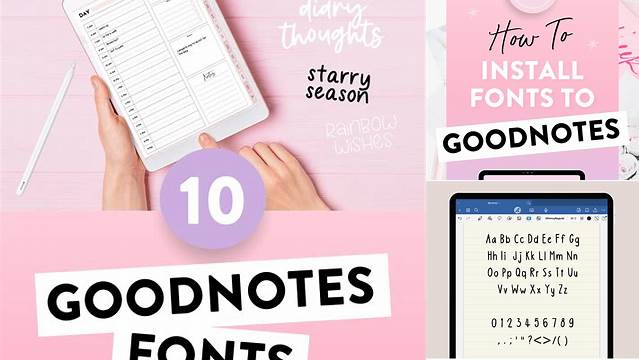
Awesome Google Fonts For GoodNotes: Elevate Your Digital Notes
Hey everyone! If you're a GoodNotes user like me, you know how important it is to have your digital notes looking sharp and organized. And a huge part of that is choosing the right fonts! That's where Google Fonts comes in. With tons of amazing, free fonts at your fingertips, you can totally transform your GoodNotes experience. Today, we're diving deep into the best Google Fonts for GoodNotes, helping you find the perfect typography to match your style and make your notes pop. Get ready to level up your note-taking game! Let's get started, shall we?
H2: Top Google Fonts for GoodNotes: A Comprehensive Guide
Choosing the right fonts in GoodNotes can feel overwhelming, right? There are so many options! Don't worry, I've got you covered. This guide will walk you through some of the best Google Fonts for GoodNotes, categorized to help you find what you need. We'll explore fonts for headings, body text, and even those that add a touch of personality. Remember, the key is to choose fonts that are both readable and visually appealing. Compatibility is also key. Make sure the fonts you choose work well within the GoodNotes app. We'll cover fonts that are both aesthetically pleasing and practical for everyday use. We will examine different font families such as Serif, Sans Serif, Monospace, and Script fonts. This guide aims to provide you with a solid foundation for making informed font choices in GoodNotes. Ultimately, the goal is to enhance your note-taking efficiency and make the entire process more enjoyable. By the end of this section, you'll be equipped to select the ideal fonts, transforming your digital notes into organized and engaging masterpieces. So, without further ado, let's explore some great options.
H3: Best Serif Fonts for GoodNotes
Serif fonts are a classic choice, known for their elegance and readability. They have small strokes (serifs) at the end of each letter, which can guide the eye across the page. They can be a good choice for the main body of text in your GoodNotes. For GoodNotes, consider these serif fonts: Playfair Display, with its high contrast and classic look, is perfect for headlines and titles. It adds a touch of sophistication to any page. The slightly heavier weight of this font ensures that the headings grab your attention. Lora is another fantastic option. Its balanced design makes it suitable for both headlines and body text. It's known for its clarity and readability. Lora ensures your notes are easy to read. Crimson Text is a great font for a classic, timeless look. It's inspired by old-style typefaces, making it ideal for a traditional feel. It works perfectly for longer texts. These fonts can enhance the overall aesthetic appeal of your notes. Serif fonts provide a touch of formality and refinement to your digital notebooks. The design provides excellent legibility, making it easy to scan through your notes. Experiment with these fonts to see which one best suits your style and note-taking needs. Don't be afraid to mix and match different font styles to create the perfect look for your GoodNotes.
H3: Best Sans-Serif Fonts for GoodNotes
Sans-serif fonts are clean and modern, perfect for a sleek and minimalist aesthetic. These fonts lack the small strokes (serifs) at the end of letters, giving them a more contemporary feel. For GoodNotes, these sans-serif fonts are worth considering: Open Sans is a versatile choice, known for its legibility and neutral appearance. It's great for body text and works well in various settings. It offers a balanced look that won’t distract from your content. Roboto is another excellent option, widely used for its clarity and modern design. It’s a great choice for both headings and body text. It provides a clean, readable look. Lato is a friendly and approachable font, designed to be both clear and legible. It is excellent for headings and body text. Its open style allows for better readability. These fonts can add a modern and professional touch to your digital notes. The versatility makes them great choices for a range of note-taking styles. Experiment with these options to find fonts that enhance your note-taking process. Sans-serif fonts offer a clean and straightforward presentation, making them ideal for a more modern and streamlined look in GoodNotes. Always make sure the chosen font is easily readable on your GoodNotes page.
H2: Pairing Fonts Like a Pro: Font Combinations for GoodNotes
Knowing which fonts work well together can elevate your notes from good to great. Here’s how to pair fonts effectively. Understanding font pairings is a skill that can really make your notes pop. Choosing the right combination can significantly enhance the readability and aesthetic appeal of your notes. The goal is to create visual harmony. We will show you how to effectively pair different fonts for your GoodNotes. This includes mixing and matching fonts for headings, body text, and other elements. You should choose fonts that are visually compatible and create a good balance between them. A good font pairing should consider contrast, readability, and overall design consistency. By mastering font pairings, you can improve your note-taking and design skills. Let’s explore some pairings.
H3: Final Thoughts and Next Steps